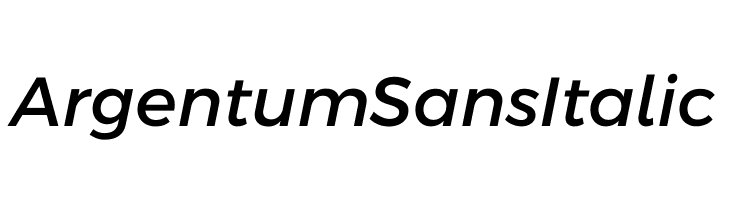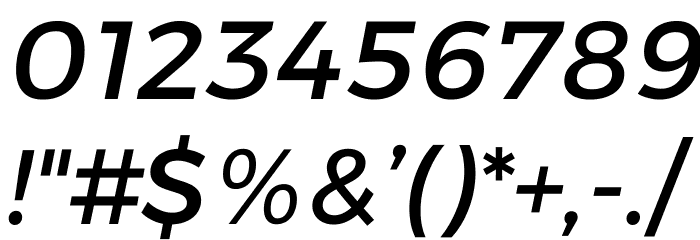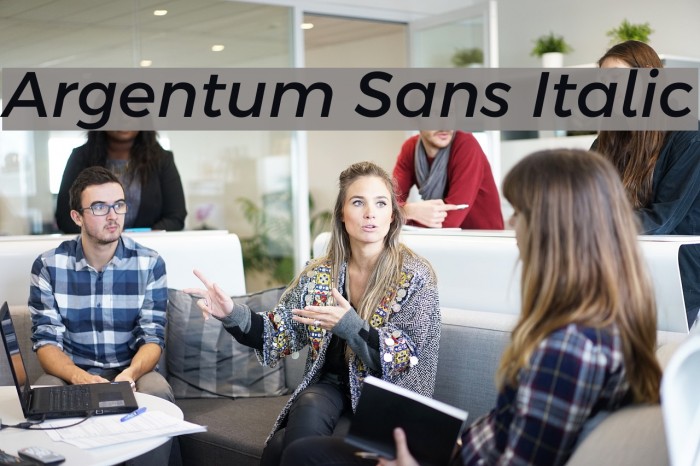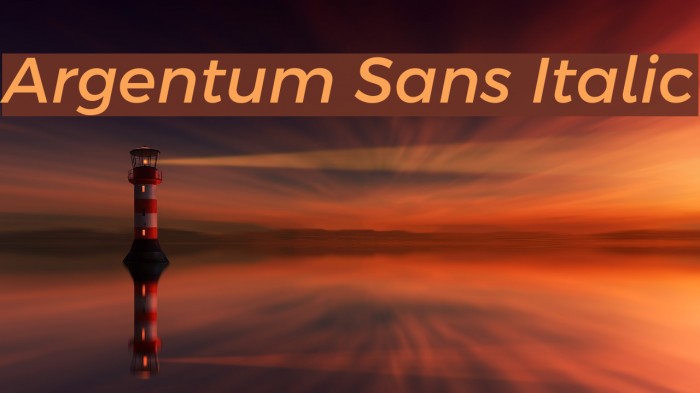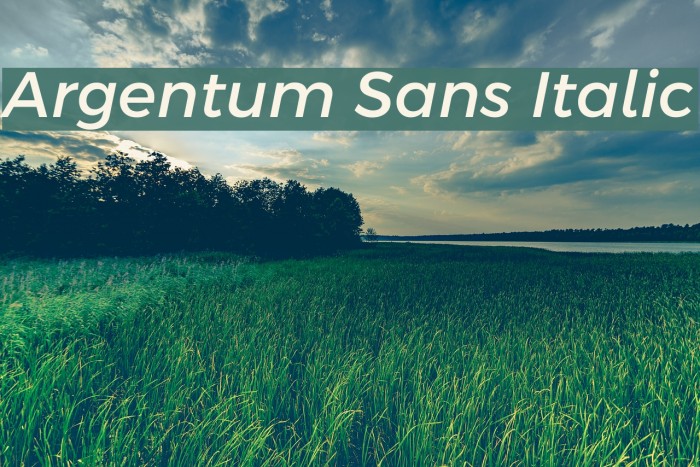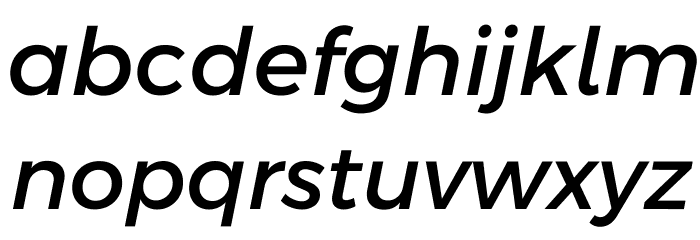
Argentum Sans Italic Font
This font features a sleek and modern design with a slight italic slant, giving it a dynamic and forward-moving appearance. The characters are clean and well-defined, with a uniform stroke width that maintains a consistent look across both uppercase and lowercase letters. The numerals are clear and easy to read, making them suitable for various applications. Special characters are included, each designed to match the overall aesthetic of the font. The spacing between characters is balanced, ensuring readability without compromising the stylish look.
A modern, italic sans-serif font with clean lines and balanced spacing.
• Proposed Projects: Ideal for branding, advertising, digital interfaces, and editorial design projects.